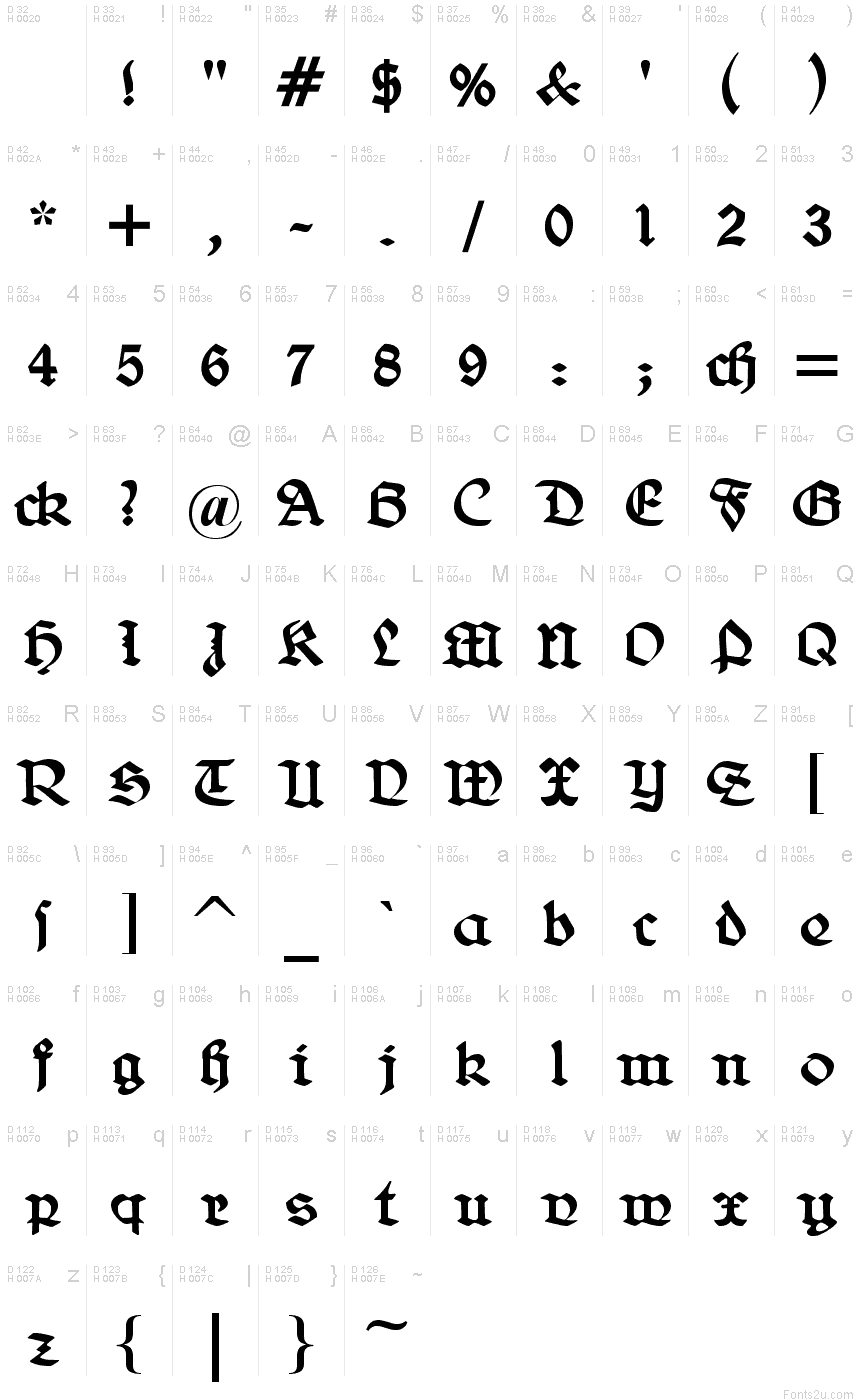
Belwe Gotisch
Belwe Gotisch font by Typographer Mediengestaltung is a free Gothic medieval typeface. Its dense black strokes, sharp angles, and swooping curves feel like they’ve been lifted from an illuminated manuscript, yet the letters lock together with a steady rhythm that reads cleanly at larger sizes.
Using Belwe Gotisch, you can give fantasy book covers, RPG rulebooks, brewery labels, metal band logos, reenactment posters, and ceremonial certificates an authentic, old-world bite. This free font shines when set big and bold, then supported by a quiet modern sans serif for body text to keep layouts legible while the Gothic title does the storytelling.